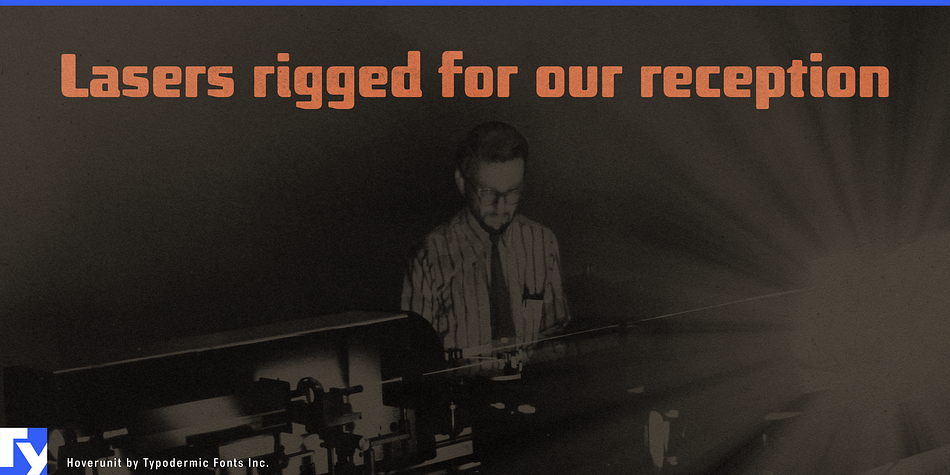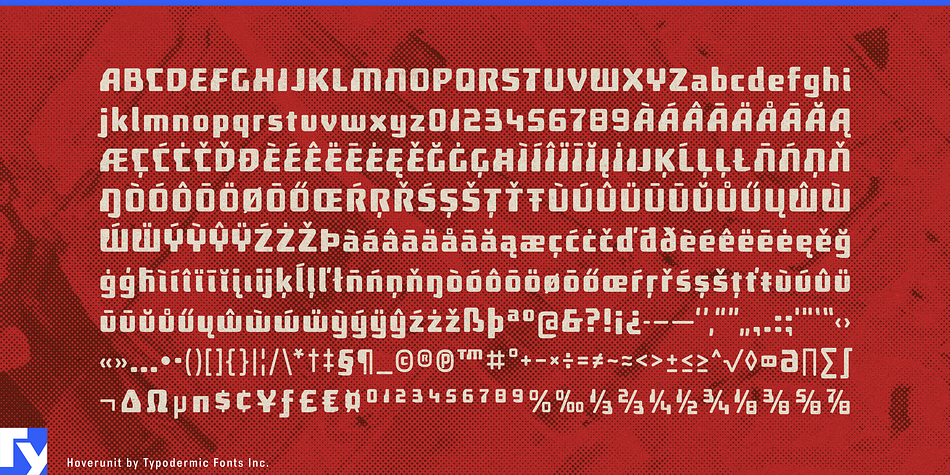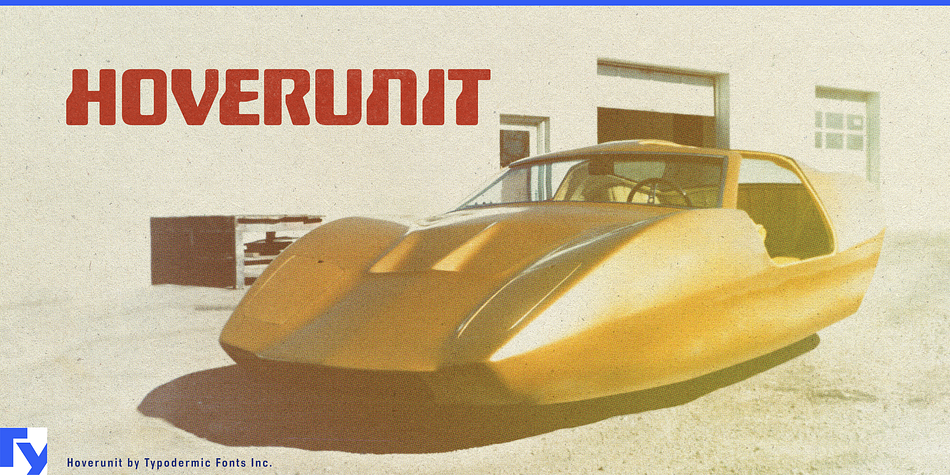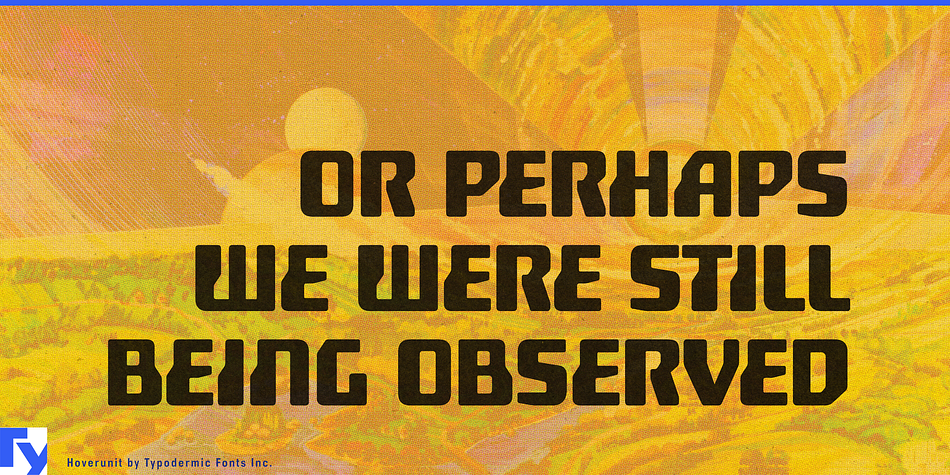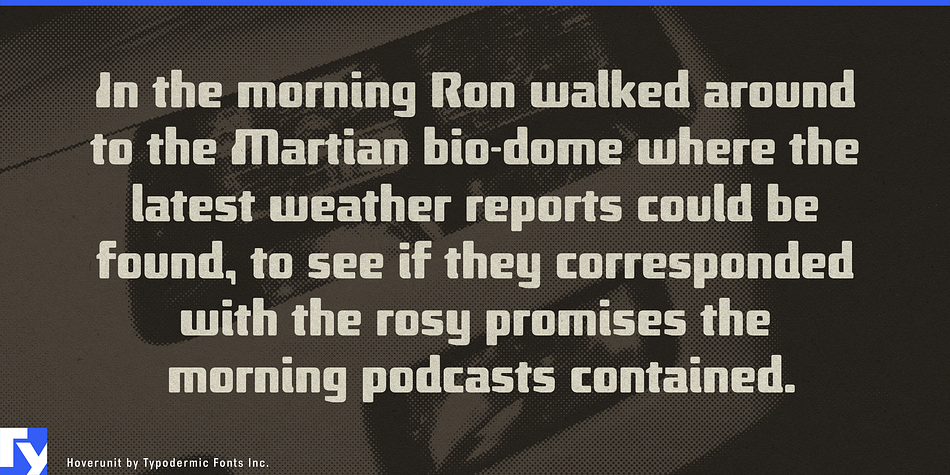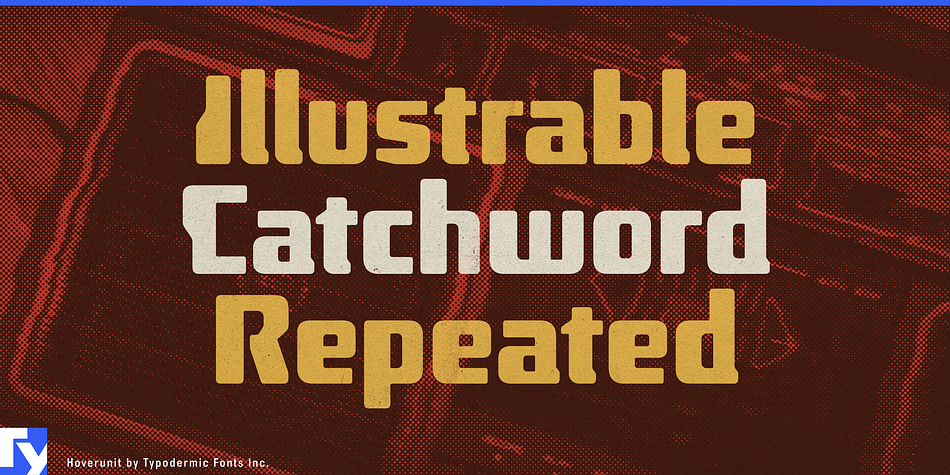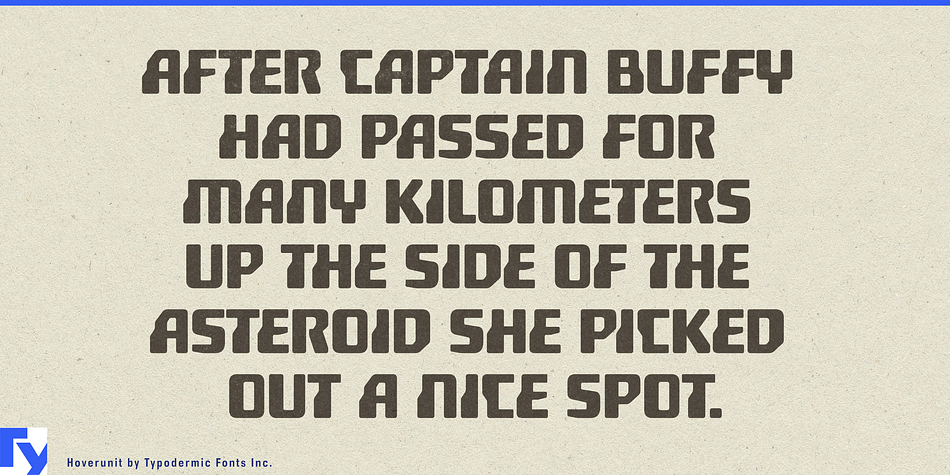
Hoverunit is a display font published by Typodermic Fonts Inc.
Attention, Citizens of Earth! At Typodermic, we used font science, lab coats and turbo lasers to generate the perfect model of a font from the year 300000. It’s stroppy, clever & super macho. In the future, Earth citizens will be forced by their cruel robot masters to learn to write in the Hoverunit lettering style or taste the acrid sting of the proton whip.